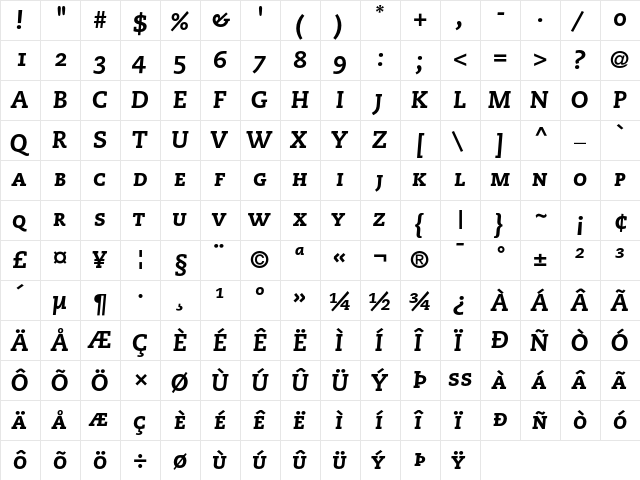
PMN Caecilia 86 Heavy Italic Small Caps & Oldstyle Figures
Design Context for PMN Caecilia Typeface
PMN Caecilia brings classic typographic sensibility to the table — its serifs and measured letterforms reflect centuries of print heritage. The dynamic lean of this cut emphasises speed and emphasis in any layout.
Pro Tip: Use PMN Caecilia for editorial body copy and considered headline work. Pair with a neutral sans for UI elements or captions to create a classic hierarchy.